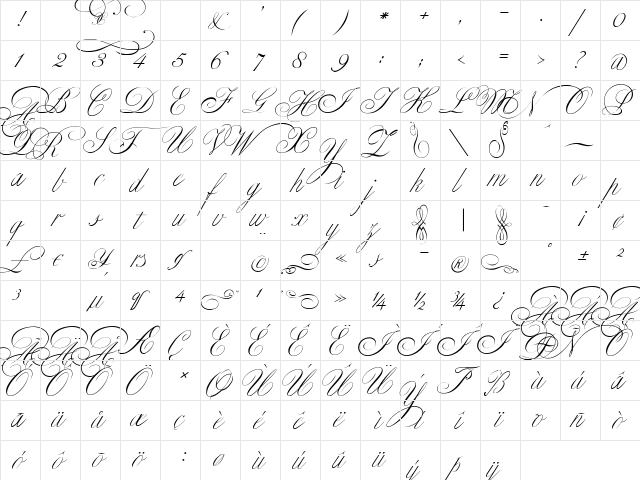
Classica Two Regular
Design Context for Classica Two Typeface
Classica Two wears its vintage influences proudly, with letterforms that recall mid-century signage, classic packaging, and nostalgia-driven design.
Font Pairing: Combine Classica Two with a simple slab or neutral sans — period-accurate companions reinforce the vintage feel without competing for attention.
Pro Tip: Use Classica Two for headlines and pull quotes rather than body copy — its personality is best appreciated in short, focused bursts.